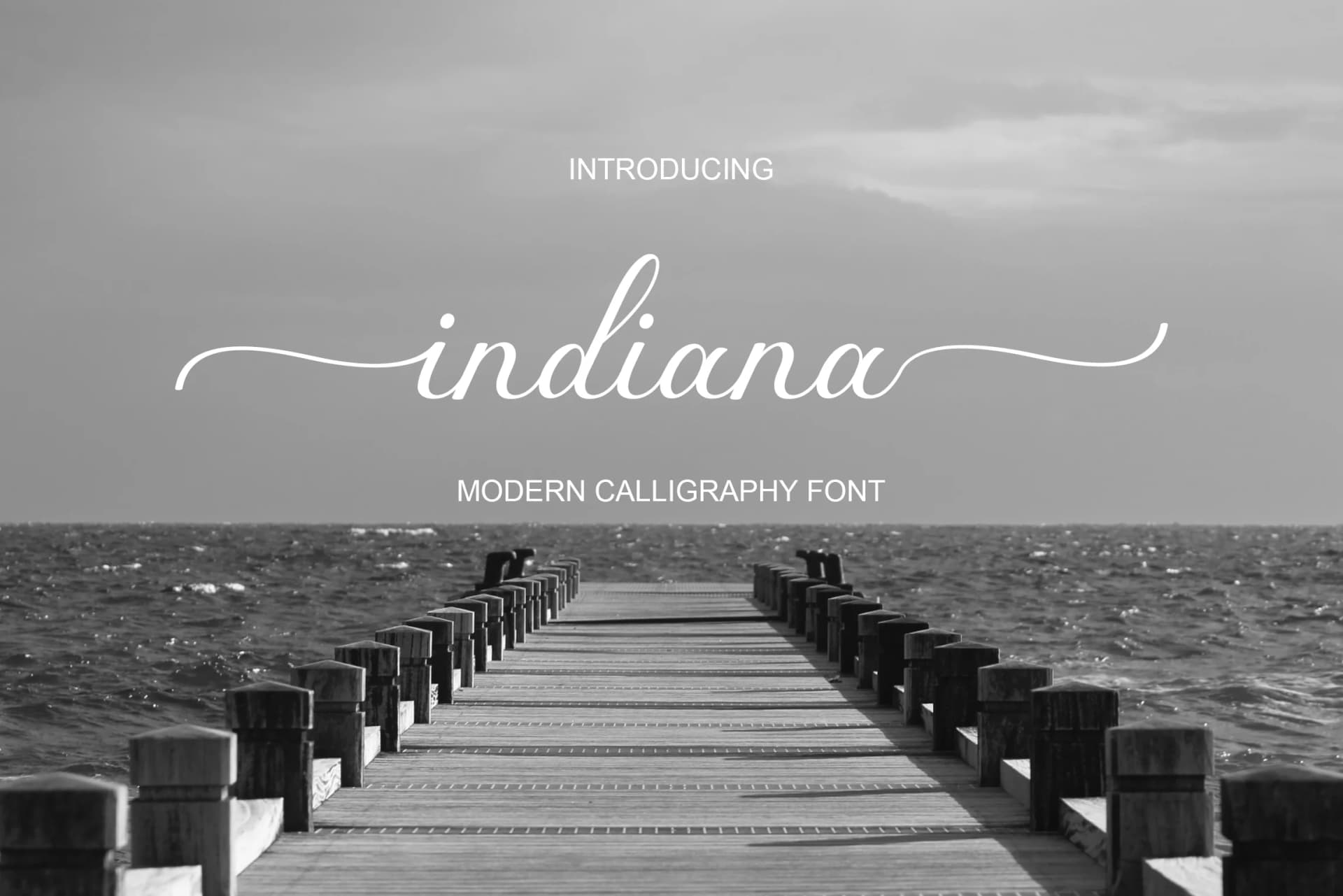
Indiana by Khalidin.Ink is a flowing script typeface that combines contemporary flair with handwritten warmth. This elegant font works beautifully for wedding invitation suites, where its organic strokes and sophisticated curves enhance formal announcements with personality and charm. Whether designing luxury beauty packaging for boutique skincare brands or creating hand-lettered social media graphics, Indiana brings a refined, approachable aesthetic that feels both premium and personal.
The typeface excels in projects where legibility matters alongside style. Its carefully balanced letterforms make it suitable for product labels, thank-you cards, and branding applications that require a personal touch without sacrificing readability. Artisanal food labels, coffee shop signage, and custom gift packaging all benefit from Indiana's versatile character. The script flows naturally across designs, maintaining visual harmony whether used for headlines or accent text.
Indiana suits designers seeking authentic handwritten quality without excessive flourish or unnecessary complexity. Its clean construction allows the typeface to work across both digital and print mediums with ease, from website headers to printed collateral. For anyone working on personal stationery, event invitations, or small business branding that demands a human element, this script delivers contemporary elegance. Find Indiana on Creative Fabrica to add its distinctive handwriting to your design toolkit.
Indiana Font is a script font that shines as a display or heading face. Pair it with a clean sans-serif or serif font for body text β the contrast creates a clear hierarchy while the two styles stay balanced and easy to read.